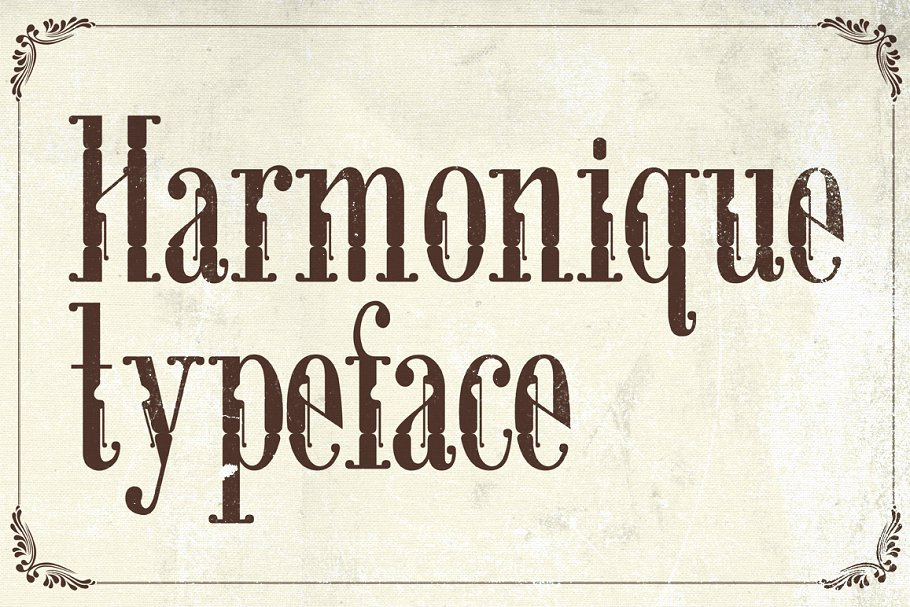
Harmonique Font
Harmonique Font is ideal for music album covers, concert posters, wedding invitations, luxury spa branding, art gallery exhibitions, classical music programs, dance studio signage, fine dining menus, elegant fashion magazines, and premium beauty product packaging.
What makes Harmonique Font exciting is its sophisticated blend of musical inspiration and typographic elegance, featuring graceful curves and rhythmic letterforms that create visual harmony reminiscent of flowing melodies. This refined typeface delivers exceptional aesthetic appeal while maintaining perfect readability for upscale communications.
Harmonique Font family includes light, regular, and bold weights with matching italics and decorative flourishes, providing designers with comprehensive typographic tools for creating elegant brand identities and sophisticated design systems.
Harmonique Font embodies artistic refinement with its masterfully balanced proportions and fluid character construction that mirrors the principles of musical composition. This versatile typeface successfully combines classical elegance with contemporary functionality, making it perfect for brands requiring sophisticated presence and cultural authenticity.
The extensive glyph collection includes uppercase and lowercase letters, numerals, elegant ligatures, and decorative elements that enhance the font's versatility in high-end applications. Harmonique Font supports multiple languages with advanced OpenType features for professional typographic control.
Harmonique Font excels in both premium print publications and sophisticated digital platforms, maintaining its elegant character whether featured in luxury magazines, displayed on concert hall websites, or used in exclusive event materials. The font's refined details ensure consistent premium presentation.
Music industry professionals and luxury brand designers appreciate how Harmonique Font instantly communicates artistic excellence and cultural sophistication. Its distinctive elegance helps creative brands establish authority while connecting with audiences who value artistic quality and refined experiences.
Whether you're designing classical music marketing materials, creating luxury brand communications, or developing sophisticated cultural content, Harmonique Font provides the elegance and artistic credibility essential for premium positioning.